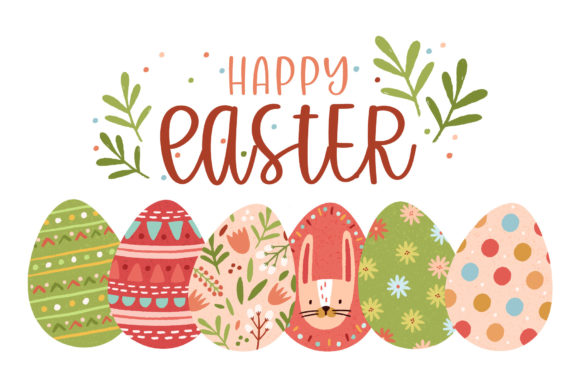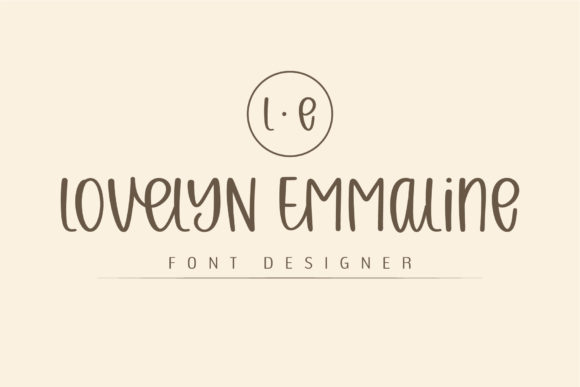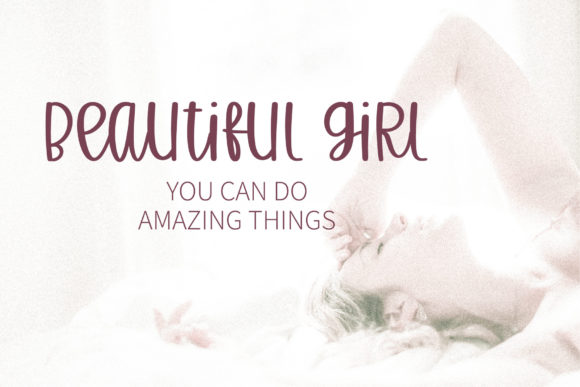
Introduction to Lunar Rainbow Font
Have you ever stared at a blank page, waiting for the perfect design to emerge? For designers, those moments of creative block can be frustrating, but also a chance to discover something new and exciting. It was during one such moment that I stumbled upon the Lunar Rainbow Font, a game-changing design resource that has since become an integral part of my creative process.
What sets the Lunar Rainbow Font apart is its unique blend of sophistication and elegance, making it the perfect match for any high-quality project. With its stylish alternates and ligatures, this font is a valuable addition to any designer’s toolkit, allowing for seamless and creative expression. Whether you’re working on a project with a transparent background or need a reliable font for your next big design, the Lunar Rainbow Font is a free download that’s sure to elevate your work.
Key Features of Lunar Rainbow Font
- High-Quality Design – The Lunar Rainbow Font is designed to provide a unique and creative touch to any project, making it an excellent design resource for various applications.
- Transparent Background – This font features a transparent background, allowing users to easily customize and combine it with other design elements.
- Perfect for Digital and Print Projects – The font’s high-quality design and transparent background make it an excellent choice for both digital and print projects, including logos, graphics, and other creative applications.
- Easy to Customize – The Lunar Rainbow Font can be easily customized and combined with other design elements, making it an excellent choice for designers and artists working on a creative project.
Honest Review: Lunar Rainbow Font
I recently came across the Lunar Rainbow Font and I must say it’s been a great addition to my design resources. The font is perfect for any creative project that needs a touch of whimsy and magic.
Here are some things that work well about the Lunar Rainbow Font: ✨ It’s completely free to download, making it a great option for designers on a budget. ✨ The font is highly customizable, allowing you to adjust the colors and transparency to suit your needs. ✨ It’s also available with a transparent background, making it easy to use as a overlay or texture.
However, there are a few limitations to keep in mind: ⚠️ The font may not be suitable for all types of projects, as it’s quite bold and eye-catching. ⚠️ Some users may find the font difficult to read in certain contexts, due to its unique design.
Overall, I’m really impressed with the Lunar Rainbow Font. It’s a high-quality design resource that’s perfect for designers looking to add some personality to their work. With its transparent background and customizable colors, it’s a great option for any creative project.
- Customizable colors
Lunar Rainbow Font
To get the most out of the Lunar Rainbow Font, use it in creative projects such as:
- Infographics and data visualizations
- Marketing materials and social media graphics